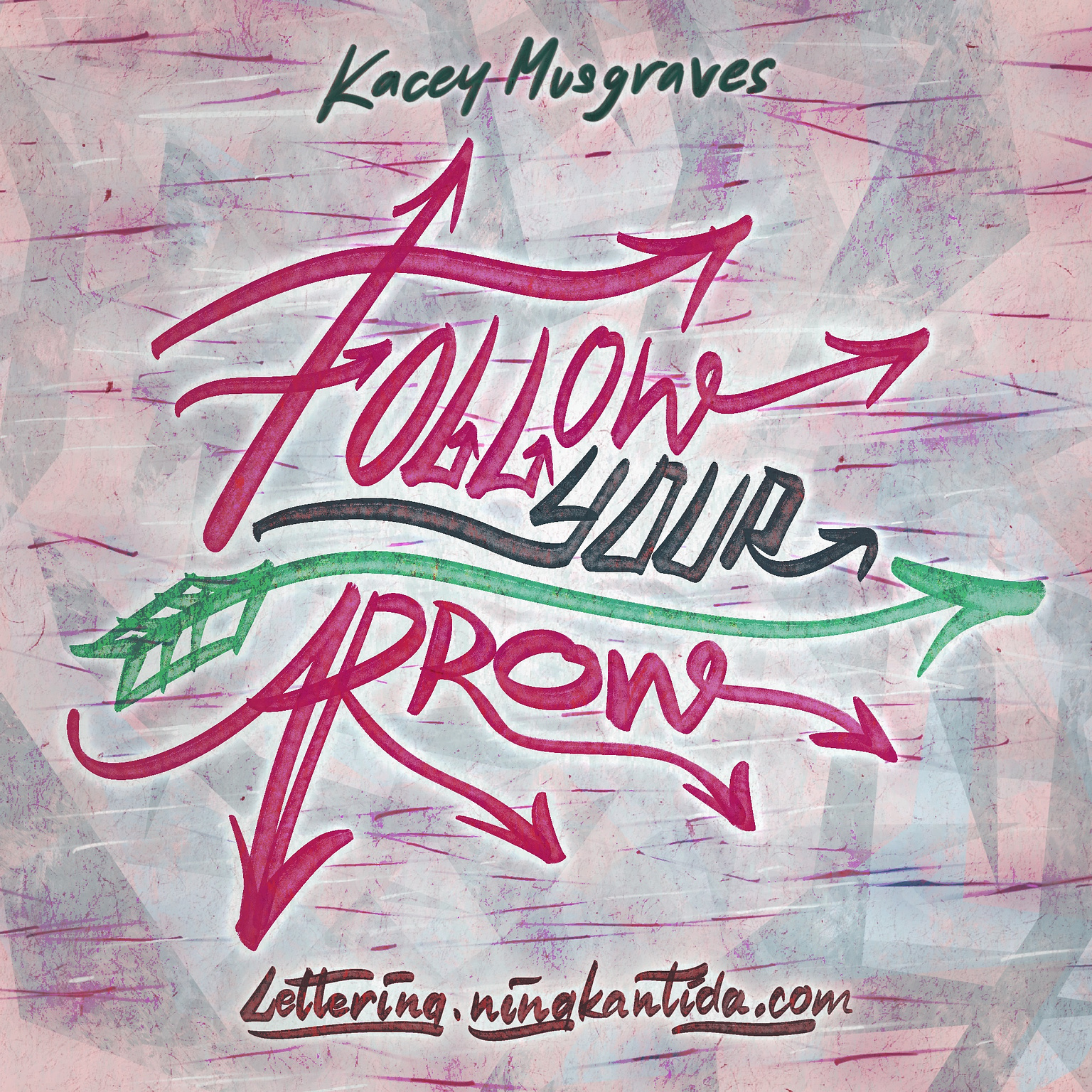
Pride Month Music 08-Follow Your Arrow by Kacey Musgraves
As we approach the end of Pride Month, I’m creating lettering pieces celebrating music related to LGBTQIA+ community. My goal is to expose people to good music and artists while also help bringing the community filled with diversity together, since music is like a universal language that can touch anyone’s heart.
Follow Your Arrow is the positive vibe we all need in this world.
I love how non-judgmental the song is, simply advising us to follow whatever direction our hearts truly desire. This short life is yours alone, so you should live it honestly and wholeheartedly.
Accept who you are and what you want. Stop making choices based on what others say or the societal norms we’ve been conditioned to follow. People will always find something to criticize, so you’re better off following your own path and living authentically.
The song also teaches us to be open-minded about the differences we all inevitably have. Because , in the end, no matter how different we may seem, we are all fundamentally the same—people with hearts and souls who want to live life on our own terms. So, let others choose their own paths, just as you choose yours.
For the lettering, I embraced the concept of following your arrow by drawing arrows pointing in various directions, symbolizing the freedom to choose any path your heart desires. The background incorporates a sense of forward movement, like an arrow in flight, to strengthen the concept further.
Follow Your Arrow by Kacey Musgraves